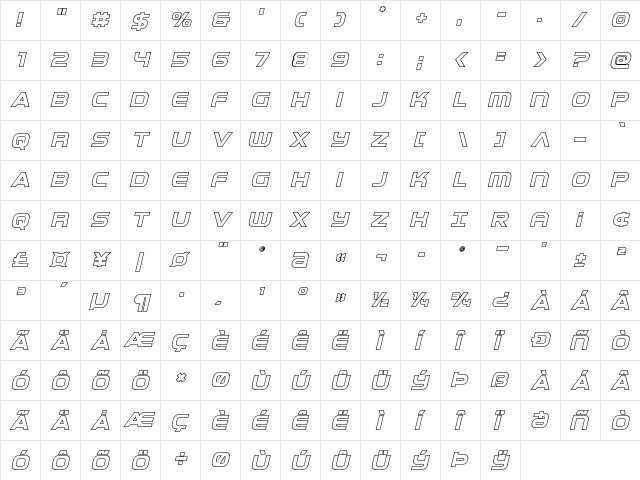
Omega Flight Outline Italic Regular Font Preview
Design Context for Omega Flight Outline Italic Typeface
Omega Flight Outline Italic is built around its visual character rather than neutral utility — its distinctive forms are designed to make an impression at display sizes. Its italic angle brings a sense of urgency and motion to the letterforms. Its slender proportions lend an understated elegance to any composition.
Font Pairing: Pair with a clean neutral sans-serif for body copy to let Omega Flight Outline Italic's character lead without overwhelming the composition.
Pro Tip: Treat Omega Flight Outline Italic as the centrepiece of your typographic hierarchy. One strong heading set in a decorative face can carry an entire layout.